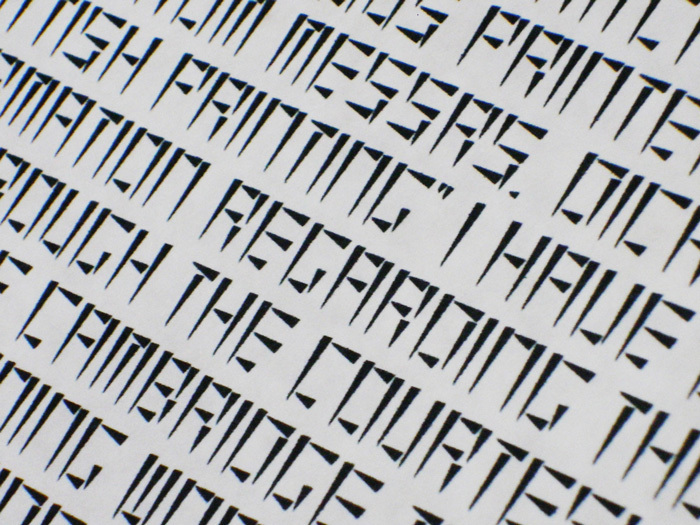
cuneiform
presugargliderz: cuneiform: 2006
Long ago, it was a made font.
It is the character which made the form of the wedge of the cuneiform characters an element. OpenType Ver.